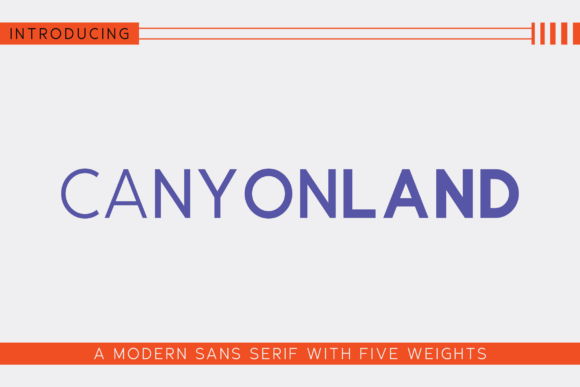
Canyonland Font: A Masterpiece of Elegance and Minimalism
In the realm of typography, few font families have managed to strike the perfect balance between sophistication and simplicity. However, Canyonland Font has emerged as a game-changer, redefining modern design with its meticulous craftsmanship and unparalleled versatility. This sans-serif font family is designed to cater to a wide range of projects, from magazines and logos to film posters and beyond.
Key Features of Canyonland Font
- 5 Distinct Weights: Canyonland Font offers five distinct weights, allowing designers to choose the perfect style to suit their project’s requirements. Whether you need a light, airy feel or a bold, statement-making font, Canyonland has got you covered.
- Versatility: This font family is designed to adapt seamlessly to various design projects. From elegant magazine layouts to striking logos and film posters, Canyonland Font can elevate your creations to new heights.
- Precision Craftsmanship: Every detail of Canyonland Font has been meticulously crafted to ensure a perfect balance between sophistication and simplicity. The result is a font family that exudes timeless charm and contemporary luxury.
Unlock a New Level of Creativity with Canyonland Font
Canyonland Font is more than just a typography solution; it’s a design powerhouse that can transform your creations. By incorporating this font family into your projects, you can:
- Elevate Your Brand: Create a lasting impression with Canyonland Font’s elegant and sophisticated style, perfect for logos, branding materials, and advertisements.
- Enhance Readability: The clear and precise design of Canyonland Font ensures excellent readability, making it ideal for body text, articles, and other written content.
- Make a Statement: With its bold weights and striking appearance, Canyonland Font is perfect for headlines, titles, and other attention-grabbing elements.
Inspiring Design Possibilities with Canyonland Font
Canyonland Font’s versatility knows no bounds. Here are some inspiring design examples that showcase the font family’s capabilities:
- Magazine Layouts: Use Canyonland Font to create elegant and sophisticated magazine layouts that exude luxury and refinement.
- Logo Design: Craft memorable logos that make a lasting impression with Canyonland Font’s bold and striking appearance.
- Film Posters: Create eye-catching film posters that grab attention with Canyonland Font’s bold weights and precise design.
Typography Tips for Working with Canyonland Font
To get the most out of Canyonland Font, here are some typography tips to keep in mind:
- Mix and Match: Experiment with different weights and styles to create visual interest and hierarchy in your designs.
- Pay Attention to Spacing: Adjust the spacing between letters and lines to create a harmonious and balanced design.
- Use Canyonland Font as a Title Font: Take advantage of Canyonland Font’s bold weights to create striking titles and headlines that grab attention.
In conclusion, Canyonland Font is a masterpiece of elegance and minimalism that can elevate your designs to new heights. With its 5 distinct weights, versatility, and precision craftsmanship, this font family is perfect for a wide range of projects. Whether you’re a designer, typographer, or simply someone who appreciates beautiful typography, Canyonland Font is sure to inspire and transform your creations.